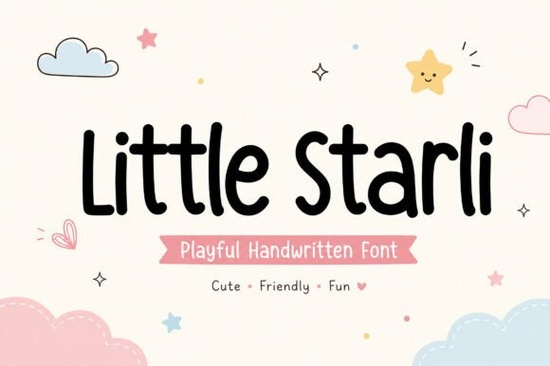
Little Starli Font is a charming handwritten typeface that brings a sense of warmth and creativity to any design project. Its soft, rounded edges and natural flow make it ideal for adding a personal touch to everything from branding to social media graphics. Whether you're working on something for kids or looking to infuse more personality into your work, this font has a friendly vibe that’s hard to ignore.
If you're searching for a font that feels like it was written by hand, Little Starli delivers exactly that. It's perfect for projects that require a cozy, authentic feel think invitations, stickers, nursery decor, or even packaging for children's products. The font’s playful nature makes it stand out without being overwhelming, allowing your designs to shine with a unique character.
Why Choose Little Starli Font?
One of the main reasons designers and creators love Little Starli is its versatility. It works well in both digital and print formats, making it a great choice for a wide range of applications. From logos to greeting cards, this font adds a warm and inviting tone that can enhance the overall look of your work.
Its inspiration comes from childhood dreams and creative play, which gives it a nostalgic quality that many find appealing. This makes it especially popular among those who want to create content for kids or design pieces that evoke a sense of comfort and joy.
How to Use Little Starli Font
For example, if you're creating a children's book, pairing Little Starli with a clean sans-serif font can help balance the design while keeping the focus on the playful text. Similarly, using it for social media posts or marketing materials can add a personal, handmade feel that resonates with your audience.
Final Thoughts
Little Starli Font is more than just a typeface it’s a tool that can help you express creativity in a heartfelt and authentic way. Whether you’re a designer, crafter, or small business owner, this font can add a unique personality to your work that stands out from the crowd.
Give it a try and see how it can bring more warmth and charm to your designs. With its playful style and easy usability, it’s a great choice for anyone looking to add a handmade feel to their creative projects.